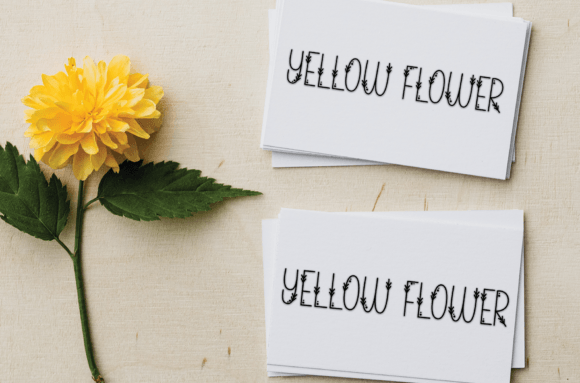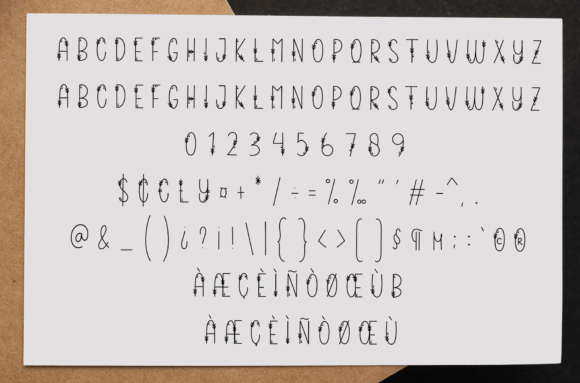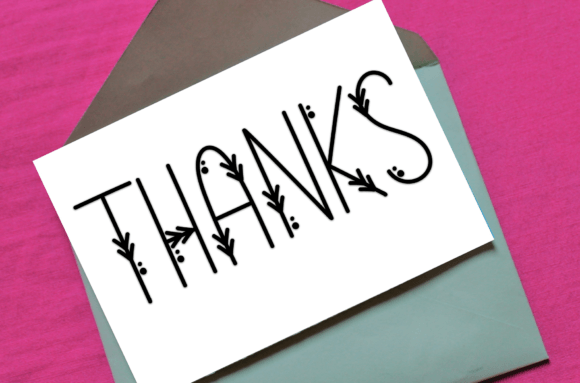
The Sweet and Friendly Floris Font: A Designer’s Delight
I’ll never forget the time I was working on a wedding invitation project, and my client asked me to create a custom design that would make their special day feel even more magical. The problem was, I was struggling to find the perfect font to match the whimsical and romantic vibe they wanted. That’s when I stumbled upon Floris Font, and it instantly became the perfect fit. In this article, I’ll share my experience with Floris Font, its features, and how to make the most of it in your designs.
An Honest Review of Floris Font
- ✨ Sweet and friendly vibe: Floris Font has a unique, handcrafted feel that adds a touch of warmth and personality to any design.
- ✅ Cute and creative: This font is perfect for designers who want to add a playful twist to their work, making it ideal for wedding invitations, cards, and other creative projects.
- 💕 Highly legible: Despite its decorative nature, Floris Font remains easy to read, even in smaller sizes.
While Floris Font is an excellent choice for many projects, there are a few things to keep in mind:
- 🤔 Limited use in formal designs: Due to its playful nature, Floris Font might not be the best fit for formal or corporate designs.
- ⚠️ Glyph limitations: While Floris Font has a range of glyphs and stylistic alternates, it might not have every special character or symbol you need.
The Story Behind Floris Font
Floris Font was designed with love and care by a talented type designer who wanted to create a font that would bring joy and whimsy to creative projects. Inspired by traditional handwriting and calligraphy, Floris Font is a unique and charming addition to any design.
Q: What is Floris Font best used for?
A: Floris Font is ideal for creative projects that require a playful and whimsical touch, such as wedding invitations, cards, and other decorative designs.
Q: Is Floris Font easy to read?
A: Yes, despite its decorative nature, Floris Font remains highly legible, even in smaller sizes.
Q: Does Floris Font have any special features?
A: Yes, Floris Font has a range of glyphs and stylistic alternates that can be accessed through OpenType features.